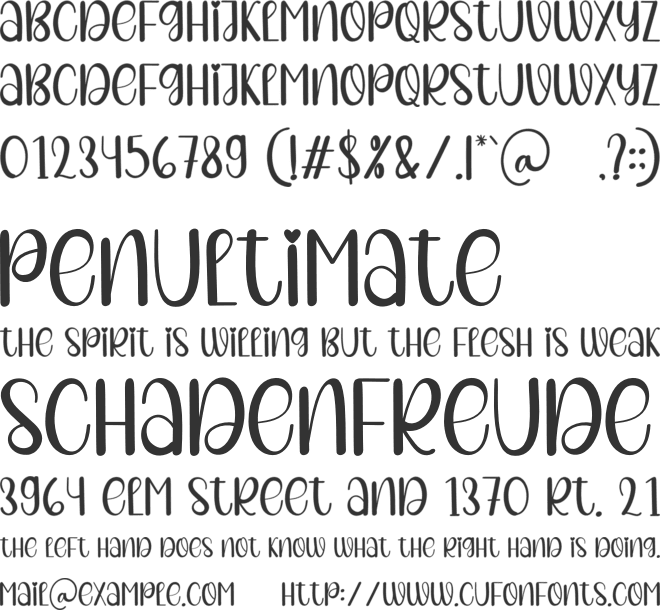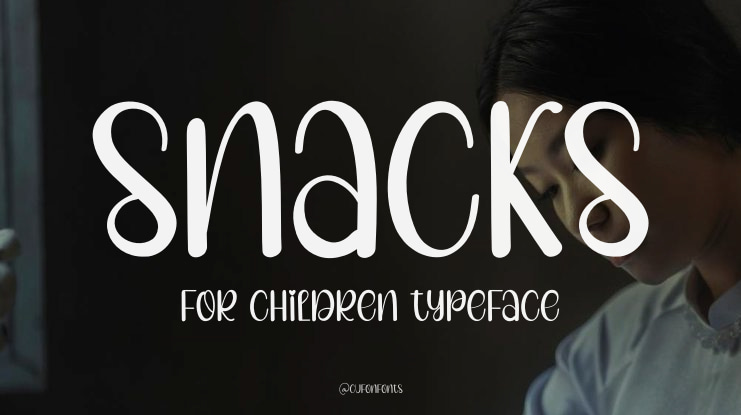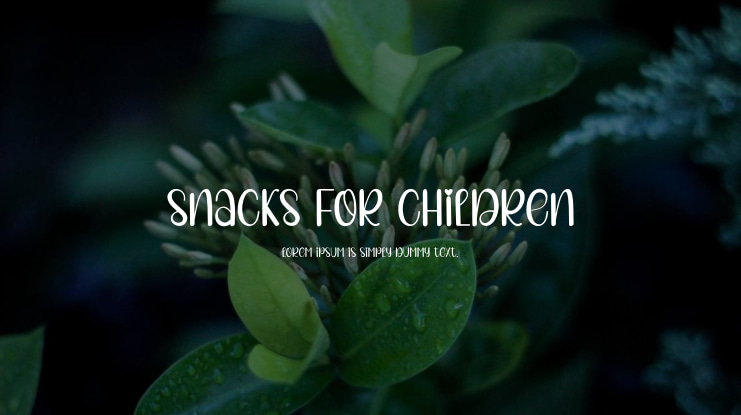
Snacks For Children Font
Our latest stylish fonts are perfect for use in wall displays, wedding invitations, social media posts, logos, advertisements, product packaging, design projects, labels, photography, watermarks, invitations, stationery, and any project that requires elegant handwriting.